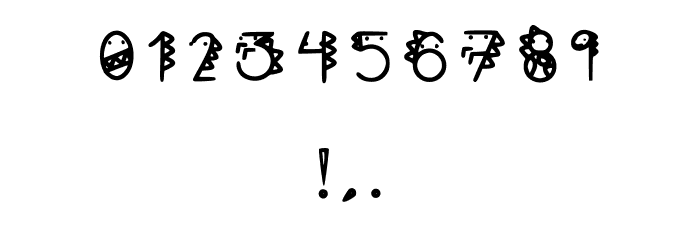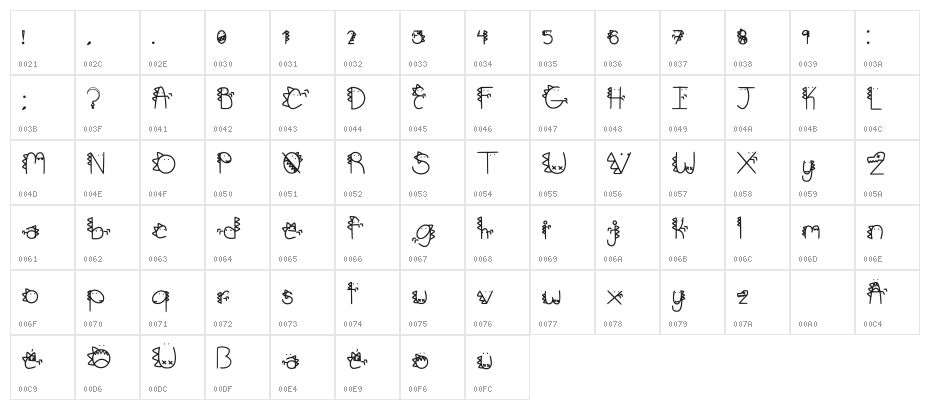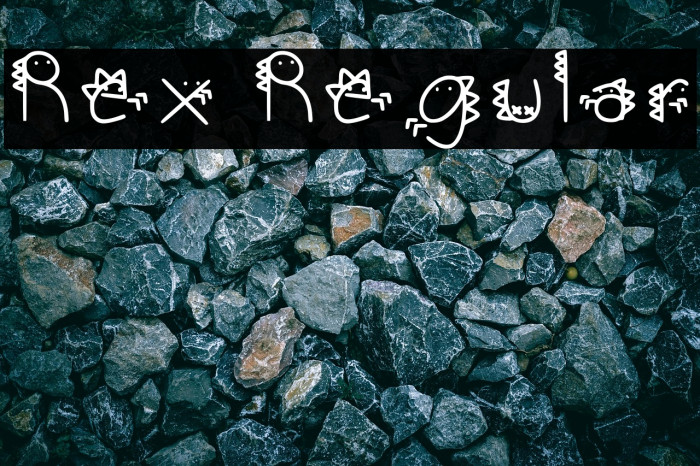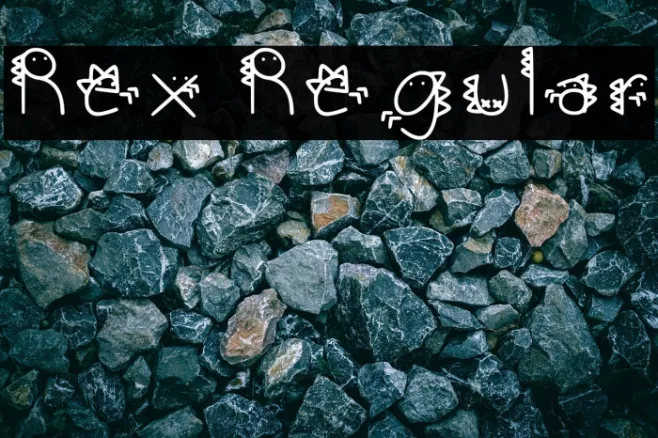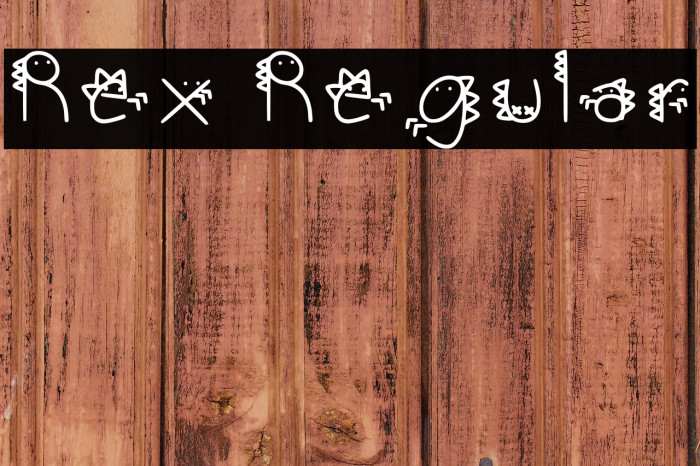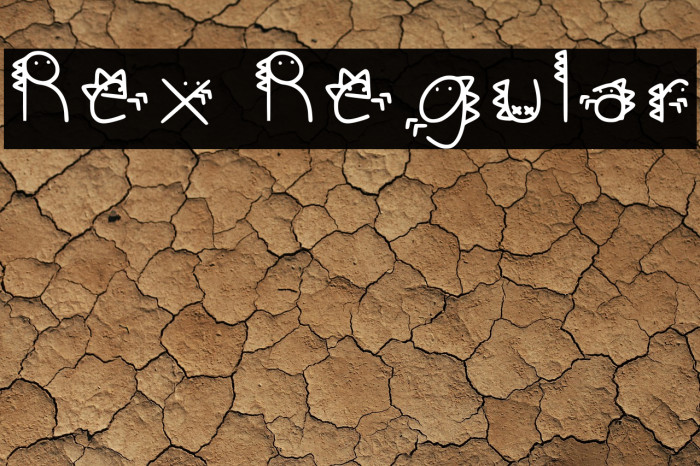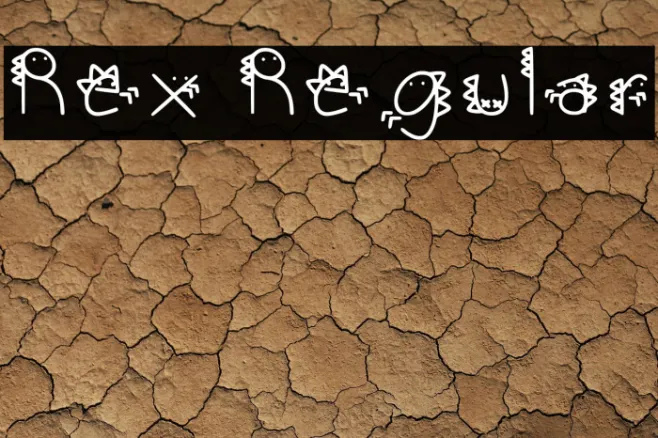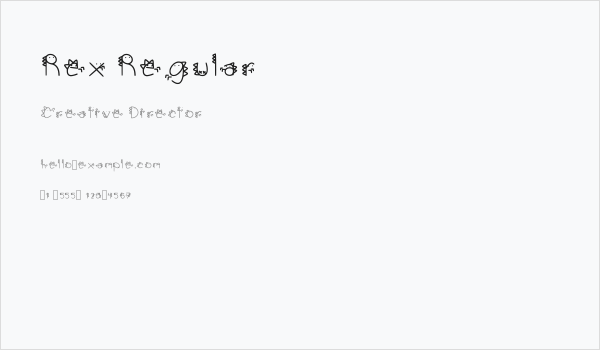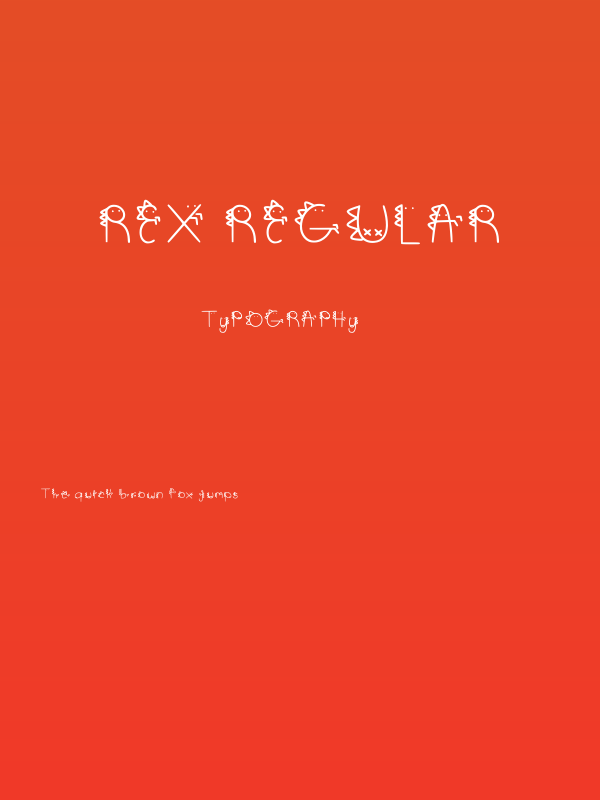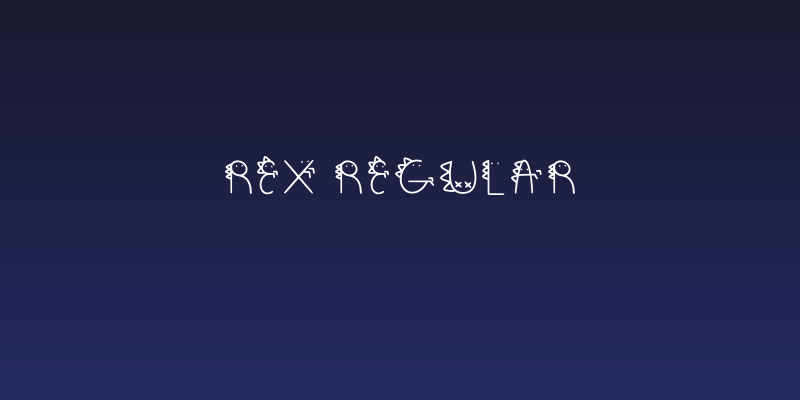
Rex Regular Font
Rex Regular Description
This font features a highly decorative and whimsical style, characterized by intricate details and playful elements. Each letter is adorned with unique embellishments, such as dots, lines, and geometric shapes, giving it a quirky and artistic appearance. The font maintains a consistent stroke width, contributing to a balanced and cohesive look. Its distinctiveness makes it stand out, ideal for creative and unconventional design projects. The numbers and special characters follow the same decorative theme, ensuring uniformity across all elements.
| Use Case | Headlines, Logos, Artistic projects |
| Proposed Projects | Ideal for creative projects such as children's book covers, playful branding, artistic posters, and unique invitations. |